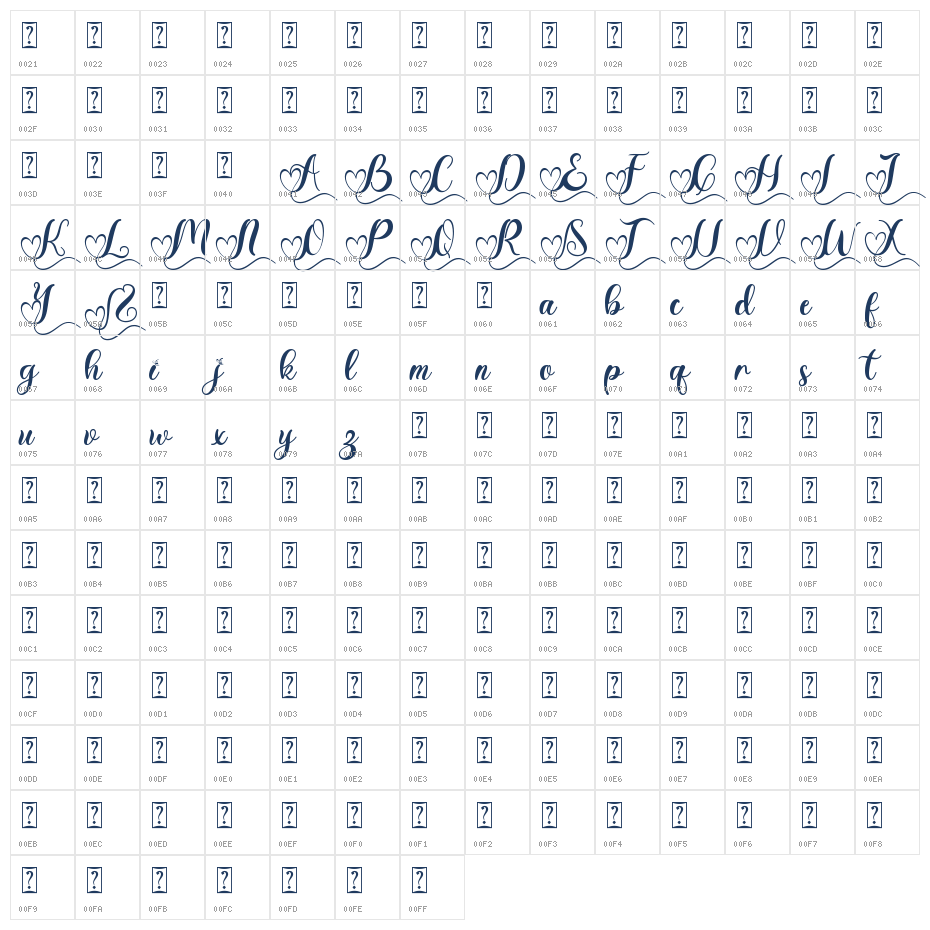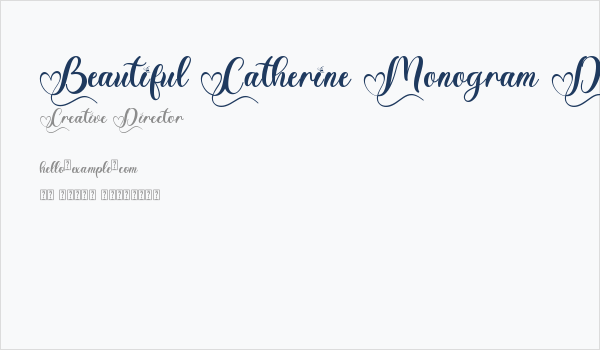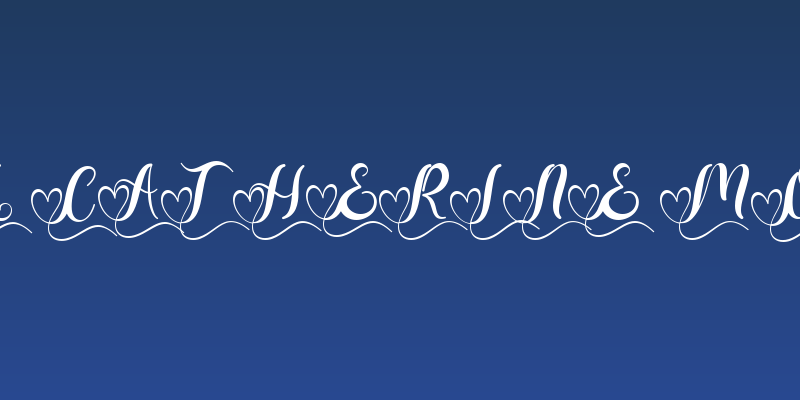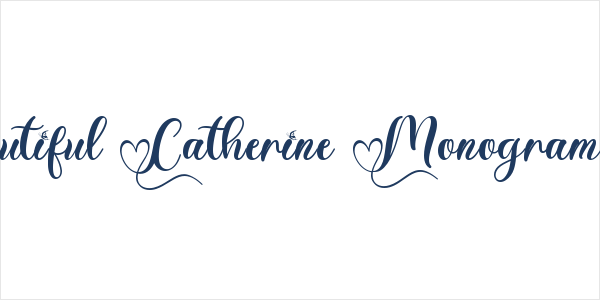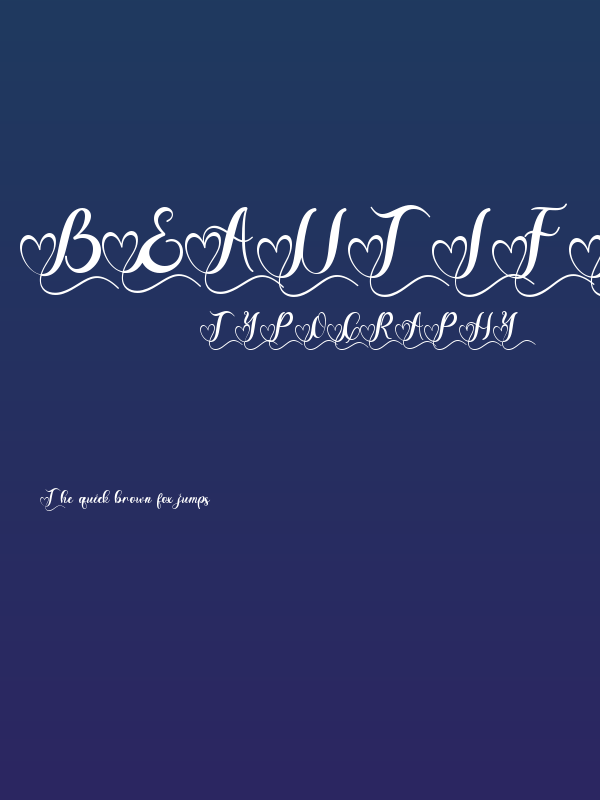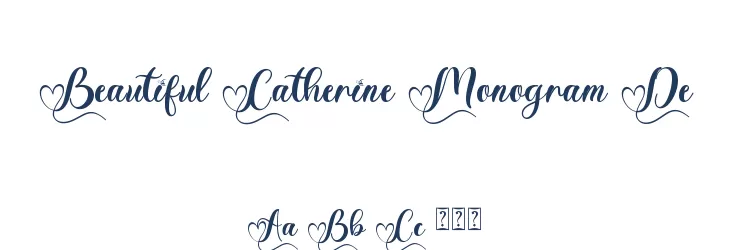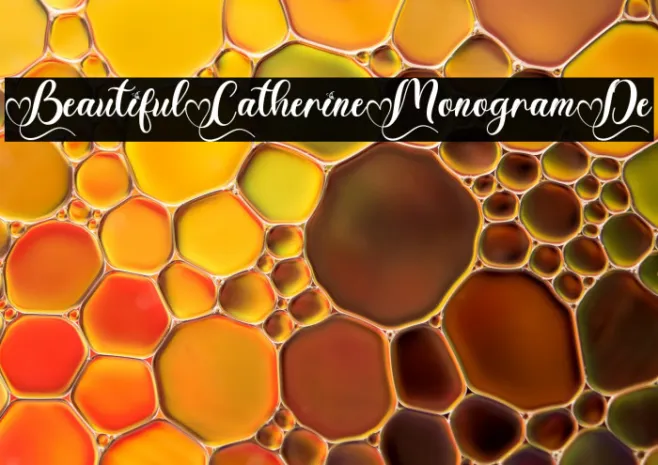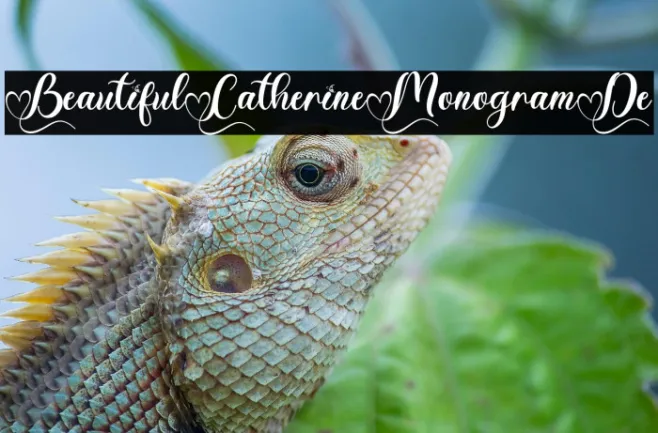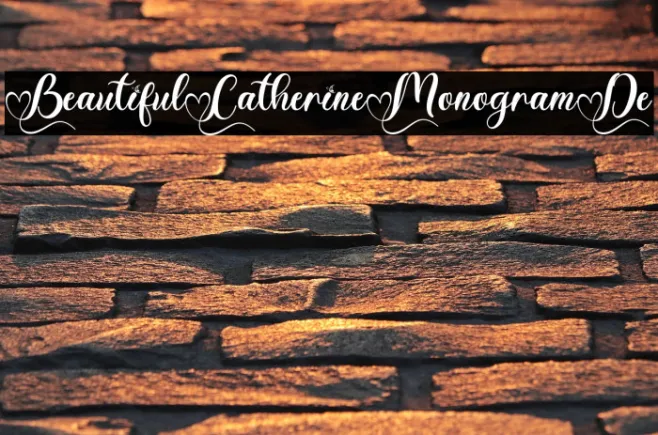
Beautiful Catherine Monogram De Font
Beautiful Catherine Monogram De Description
A decorative, cursive script font with elegant, flowing lines and heart-shaped embellishments on the uppercase letters and some lowercase letters.
| Overall Style | Elegant, Romantic, Decorative |
| Use Case | Headlines, Invitations, Greeting Cards |